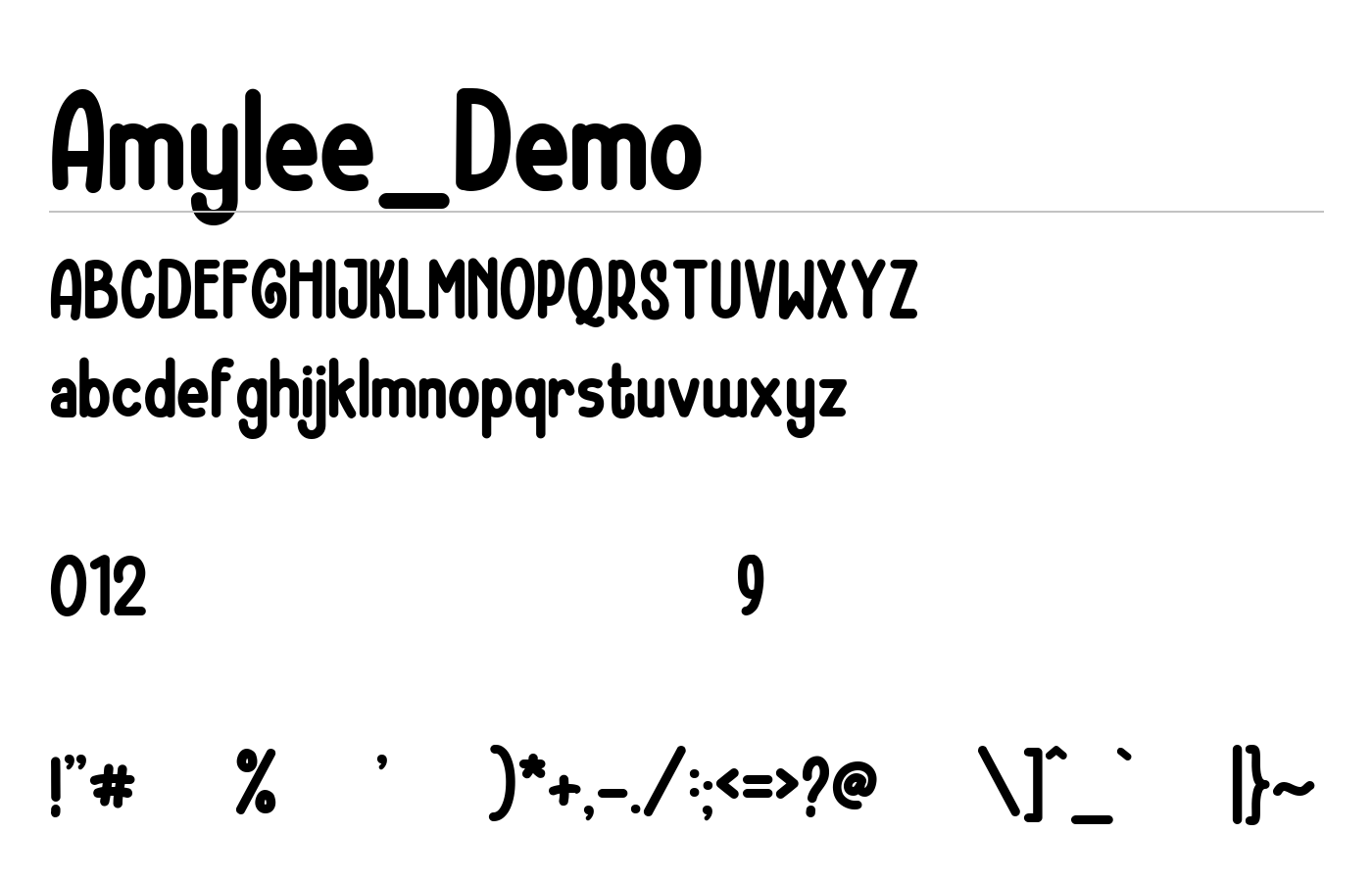
Amylee_Demo is a playful, rounded sans serif font with a bold weight and a condensed width, featuring smooth, consistent stroke widths and a friendly, approachable vibe. Its tall x-height and quirky letterforms, such as the unique "g" and underline elements, make it ideal for informal branding, children's content, or eye-catching headlines. This font works best in creative and casual contexts where warmth and personality are key.
Amylee_Demo Font
About Amylee_Demo Font